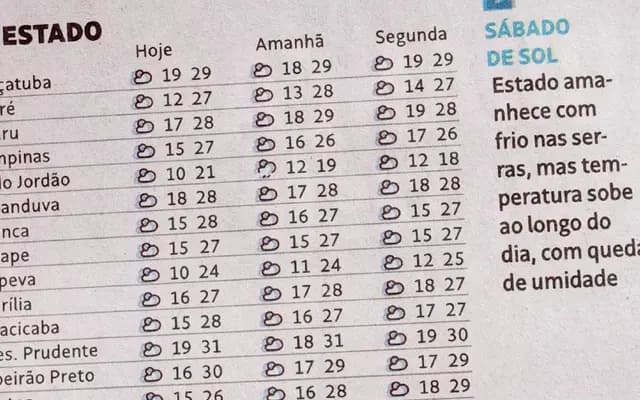
Folha
Tipografies · Jordi Embodas · 2017
A coordinated serif and sans pair commissioned for Folha de São Paulo's editorial redesign, now available for licensing outside Brazil.
Originally developed as a custom commission for the Brazilian press group Folha de São Paulo, the two families Folha Texto and Folha Gráfico replaced earlier Tipografies releases that the publisher had licensed but required exclusively. Designer Jordi Embodas accentuated humanist characteristics across both families to produce a warm, approachable quality suited to long newspaper reading across print, web and app contexts. Because exclusivity is limited to Brazil, both families are available for commercial licensing elsewhere in five weights with matching italics, small caps and comprehensive OpenType features.
Folha Texto is a serif companion to the sans Folha Gráfico, with accentuated humanist traits and warm, friendly letterforms designed for editorial newspaper use. The serif-led family drives the classification, with the humanist quality explicitly foregrounded by the foundry.